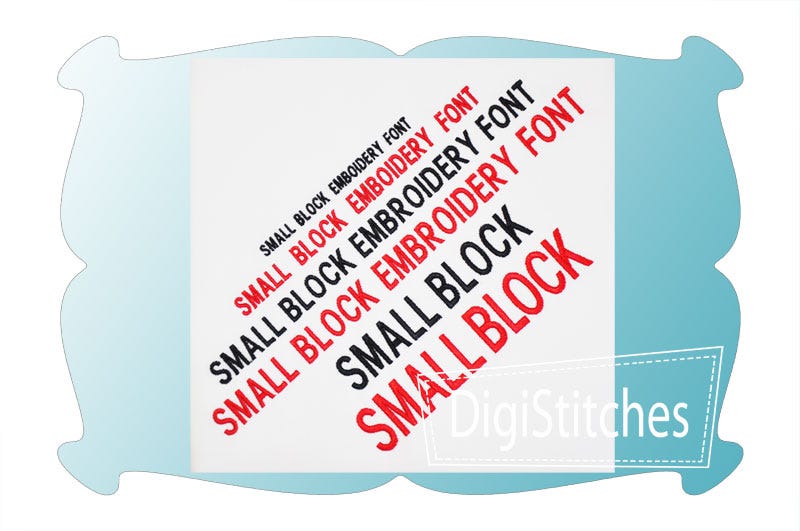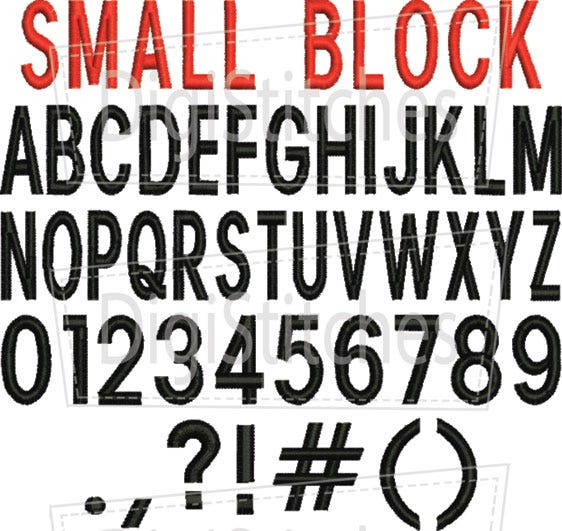
Small Block Embroidery Font
Small Block embroidery font features very small letters that are specially digitized to stitch cleanly and legibly.
Density, pull compensation and underlays have all been adjusted to work with 40 weight embroidery thread and a 75/11 embroidery needle (the standard size thread and needle used for embroidery).
Small Block Embroidery Font comes in 6 sizes: .25, .40, .50, .60, .75 and 1.00 inches. Size refers to the height of the letters in the set.